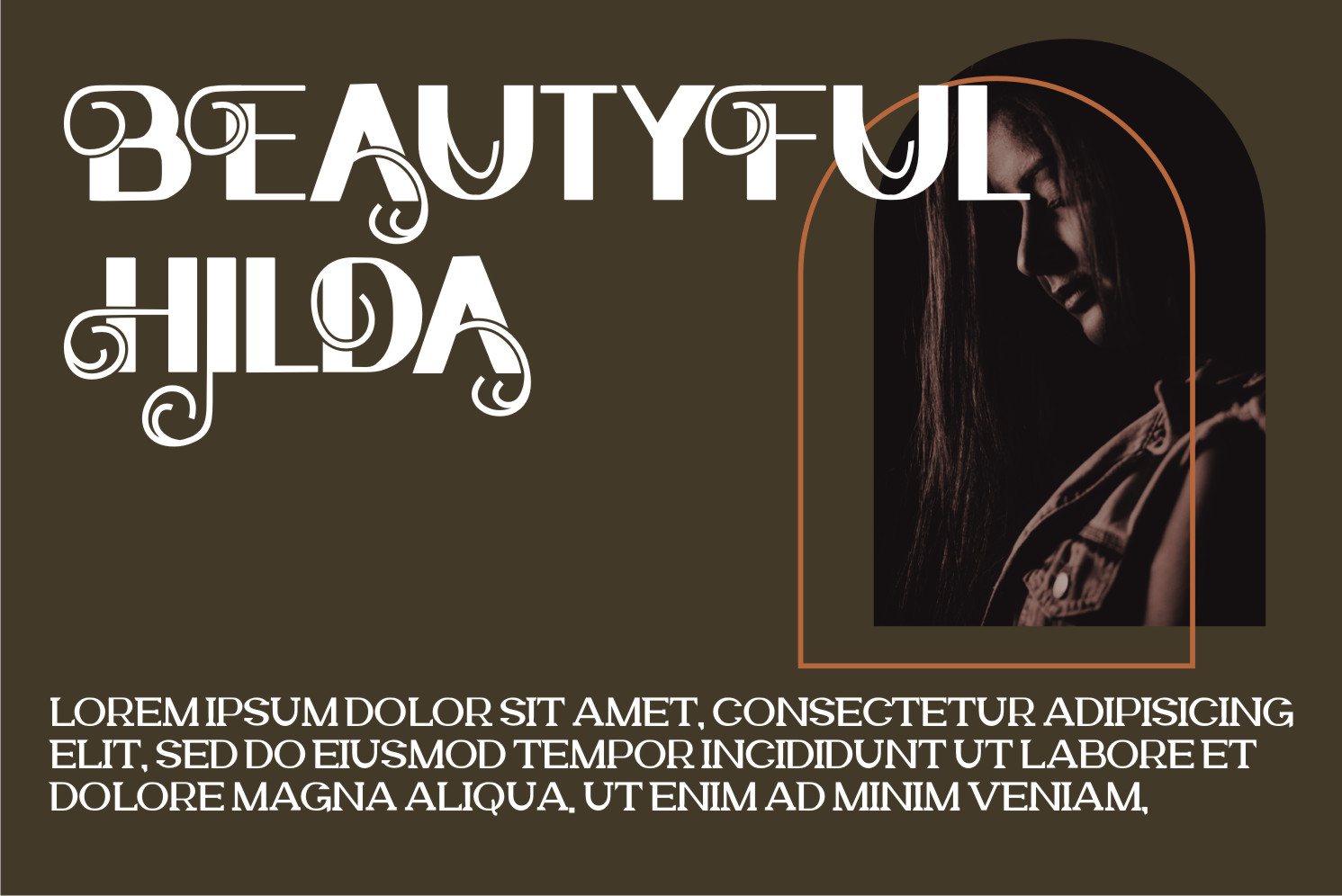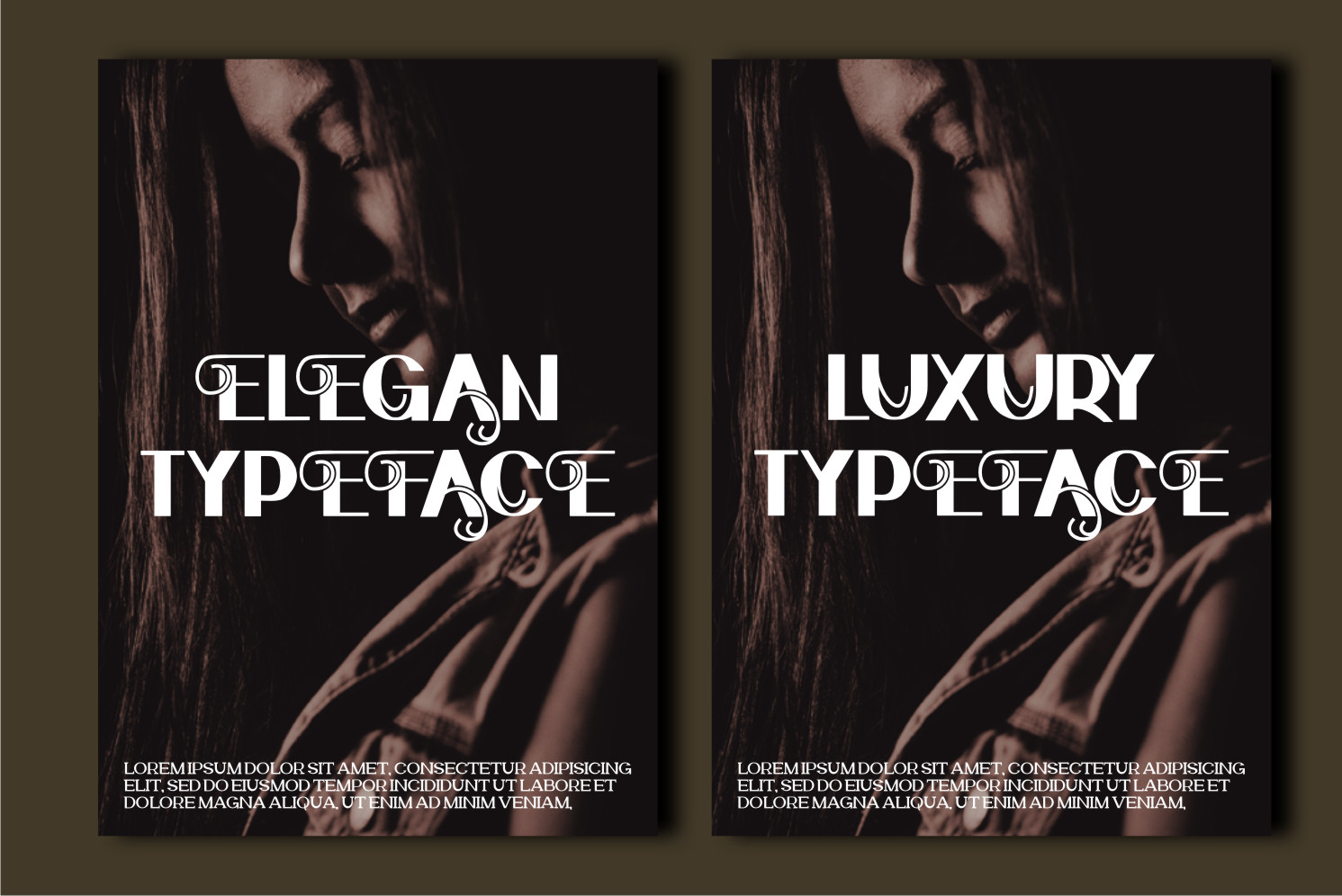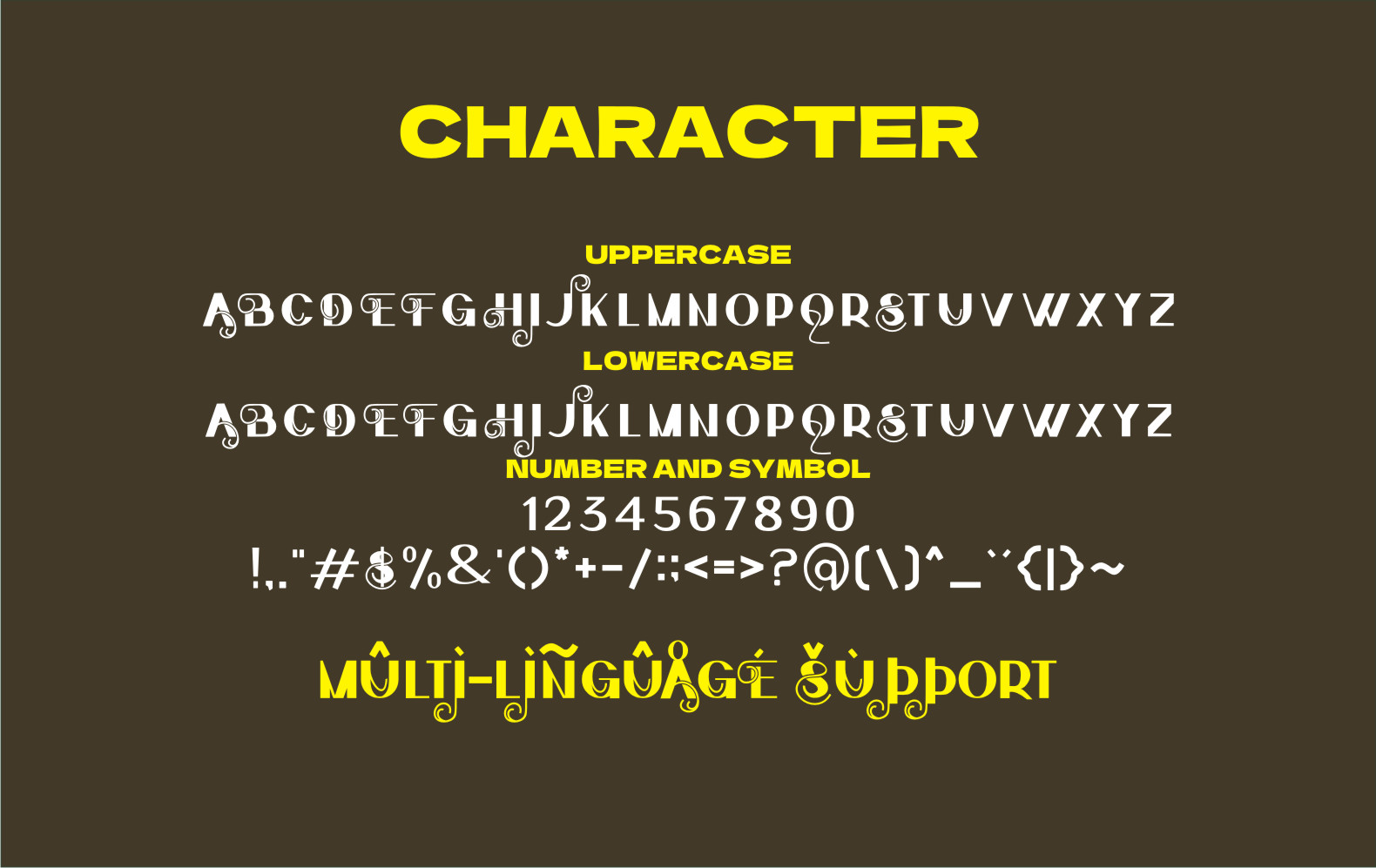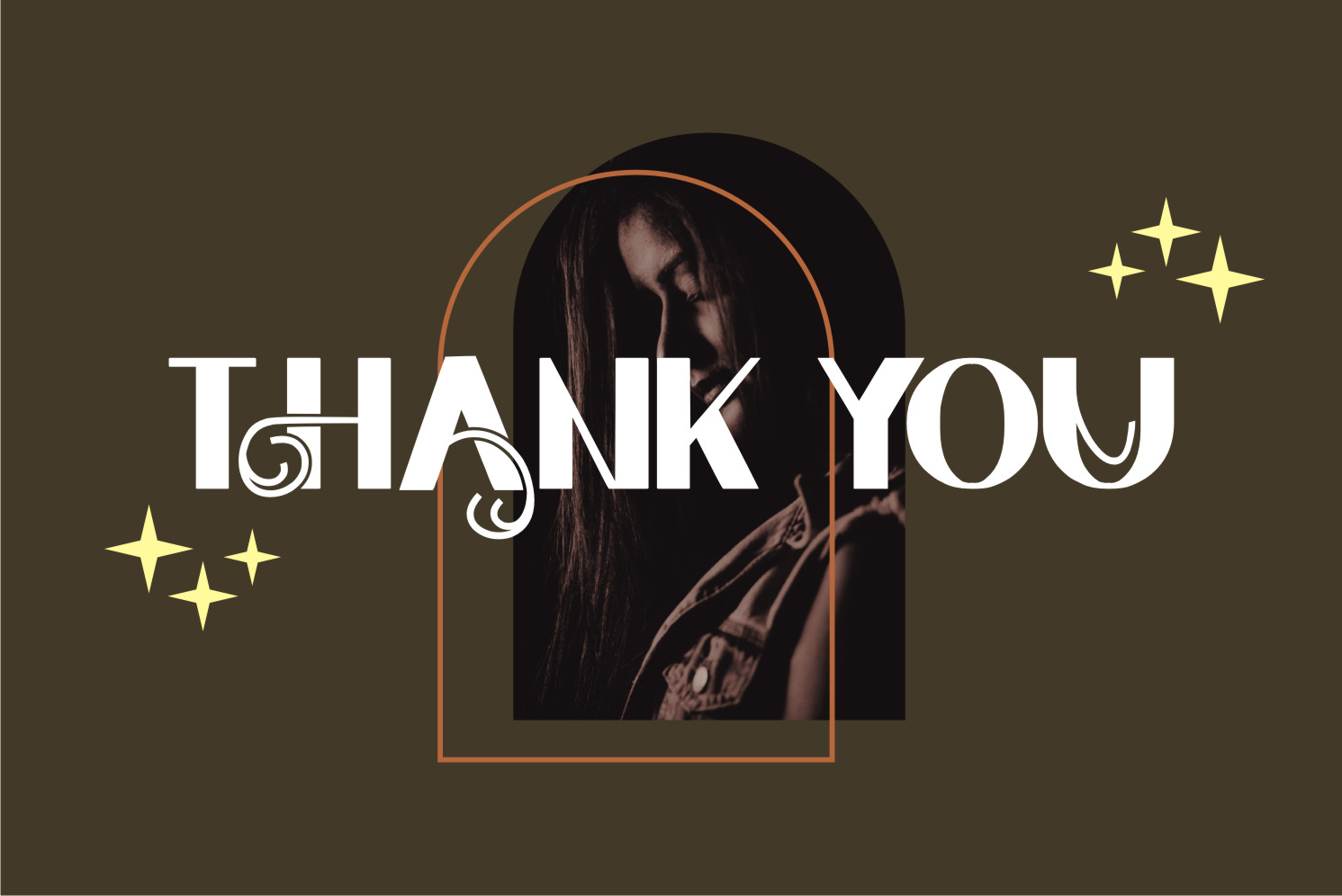
Hilda Display Font
It’s a stunning, whimsical and unique display font.This font is neatly crafted and highly detailed. Whatever the topic, Hilda will be a wonderful asset to your font library, as it has the potential to enhance any creation.